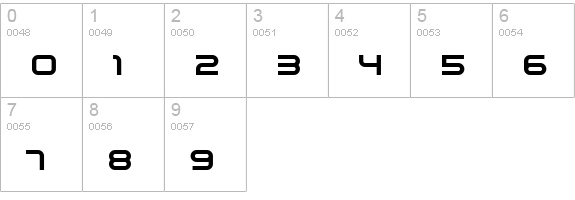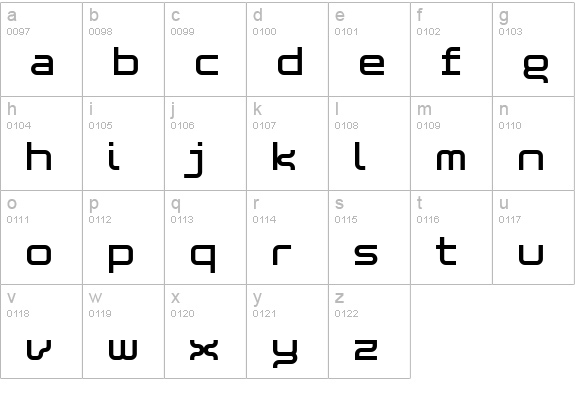
Blessed SemiBold Font Details
Blessed SemiBold is a sub-bold, structured variant in the Blessed typeface family \xE2\x80\x94 well suited to sub-headlines and emphasised passages.
The Blessed SemiBold font is a versatile and modern typeface that exudes elegance and sophistication. Its bold and semi-bold weights make it perfect for adding a touch of flair to any design project. With clean lines and a contemporary feel, this font is ideal for both headers and body text, bringing a sense of professionalism and style to your work. What sets Blessed SemiBold apart is not only its striking appearance but also the fact that it is available for free download at FontsMarket.com. This means that you can easily access and use this beautiful font without any cost, making it a valuable addition to your font library. Whether you're working on a website, a poster, a logo, or any other creative project, Blessed SemiBold is sure to elevate your design and leave a lasting impression on your audience.